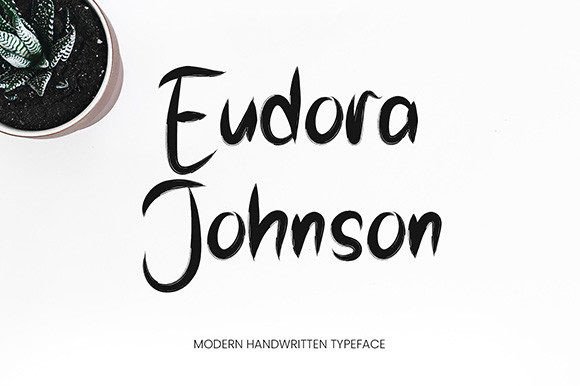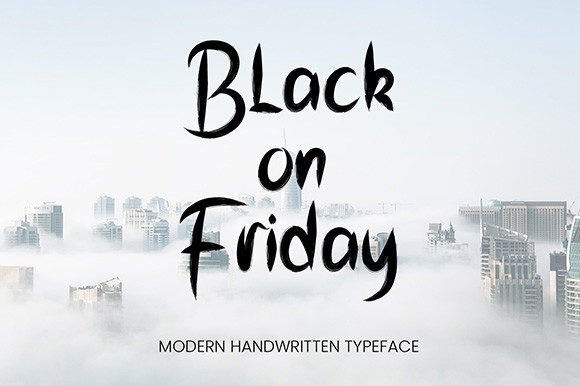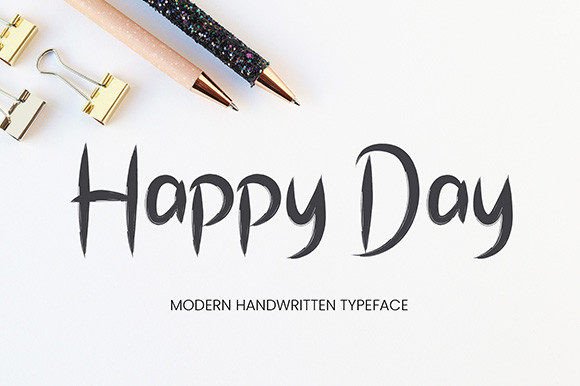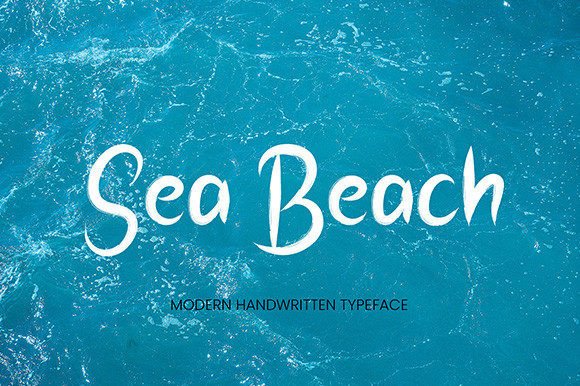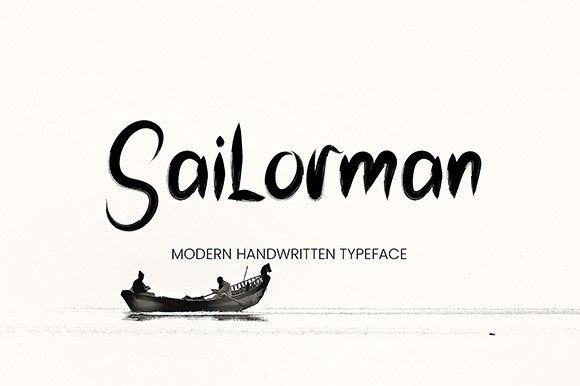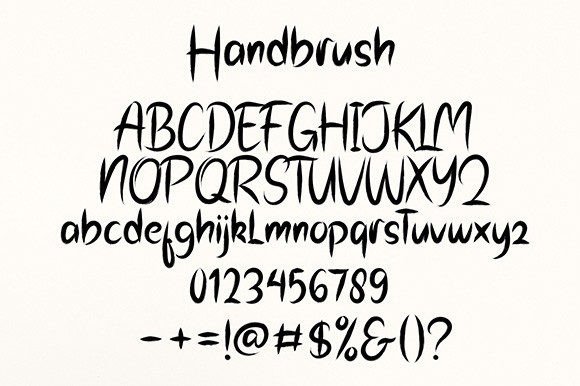
Introducing Handbrush Font: The Perfect Blend of Charming and Elegant
Are you a designer or crafter looking for a font that adds a touch of personality to your designs? Look no further than Handbrush Font. This beautiful, handwritten font is perfect for creating stunning wedding invitations, thank you cards, quotes, greeting cards, logos, business cards, and more.
The Charm of Handbrush Font
Handbrush Font feels equally charming and elegant, making it the perfect choice for any design that needs a handwritten touch. Its unique, brush-like strokes give it a distinctive look that’s both sophisticated and playful. Whether you’re creating a formal wedding invitation or a fun greeting card, Handbrush Font is sure to impress.
What Makes Handbrush Font So Versatile?
One of the things that sets Handbrush Font apart is its versatility. It can be used for a wide range of designs, from formal to informal, and looks great in a variety of contexts. Here are just a few examples of how you can use Handbrush Font:
- Wedding Invitations: Add a touch of elegance to your wedding invitations with Handbrush Font. Its beautiful, flowing strokes are perfect for creating romantic and sophisticated designs.
- Thank You Cards: Show your appreciation with a personalized thank you card featuring Handbrush Font. Its charming and elegant look is sure to make your recipients feel special.
- Quotes: Add a touch of personality to your quotes with Handbrush Font. Its unique strokes and flourishes make it perfect for creating inspiring and motivational designs.
- Greeting Cards: From birthday cards to holiday cards, Handbrush Font is the perfect choice for any occasion. Its versatility and charm make it a great addition to any design.
- Logos: Add a touch of personality to your logo with Handbrush Font. Its unique look is sure to make your brand stand out.
- Business Cards: Create a lasting impression with a business card featuring Handbrush Font. Its elegant and sophisticated look is perfect for any professional.
Why Designers and Crafters Love Handbrush Font
Designers and crafters love Handbrush Font for many reasons. Here are just a few:
- Easy to Read: Despite its elegant and cursive look, Handbrush Font is easy to read, making it perfect for designs that need to be both beautiful and legible.
- Highly Versatile: As mentioned earlier, Handbrush Font can be used for a wide range of designs, making it a great addition to any designer’s or crafter’s toolkit.
- Unique and Personal: Handbrush Font adds a touch of personality to any design, making it perfect for designers and crafters who want to create unique and personalized designs.
Tips for Using Handbrush Font
Here are a few tips for using Handbrush Font:
- Use it Sparingly: While Handbrush Font is beautiful, it can be overwhelming if used too much. Use it sparingly to add a touch of elegance and personality to your designs.
- Experiment with Colors: Handbrush Font looks great in a variety of colors, so don’t be afraid to experiment and find the perfect color for your design.
- Pair it with Other Fonts: Handbrush Font pairs well with other fonts, so don’t be afraid to get creative and try out different combinations.
In conclusion, Handbrush Font is a beautiful and versatile font that’s perfect for designers and crafters who want to add a touch of personality to their designs. Its charming and elegant look makes it perfect for a wide range of designs, from wedding invitations to logos. With its ease of use, high versatility, and unique look, Handbrush Font is a great addition to any designer’s or crafter’s toolkit.